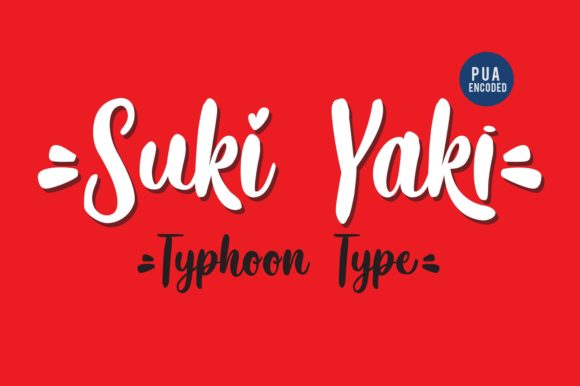
Dive into the world of Suki Yaki Font, a captivating script font that exudes boundless creativity and charm. This remarkable creation by Typhoon Typeâ„¢ - Suthi Srisopha is a stroke of genius, designed to infuse your designs with a touch of freshness and modernity.
Picture this: you're working on a magazine logo, yearning for a font that speaks volumes and leaves a lasting impression. Look no further than Suki Yaki. Its playful, handwritten style is a breath of fresh air, oozing with personality and vitality. Every letter dances off the page, inviting your readers to embark on a delightful visual journey.
With Suki Yaki, you'll discover a treasure trove of possibilities. Its versatile nature makes it a perfect fit for an array of creative endeavors. Whether you're crafting social media posts, designing invitations, or creating stunning posters, Suki Yaki will elevate your designs to new heights.
But it doesn't stop there. Suki Yaki is a font that speaks to the heart. Its bouncy and quirky nature evokes a sense of joy and playfulness, capturing the attention of your audience. It's the perfect choice for projects that aim to connect with a wider audience, leaving a lasting impact that resonates long after the initial encounter.
To further enhance your creative experience, Suki Yaki comes PUA encoded, granting you effortless access to a myriad of glyphs and swashes. Unleash your imagination and explore a world of endless possibilities, where every design element comes alive with Suki Yaki's boundless charm.
Join the creative revolution and embrace Suki Yaki Font today. Let your designs bloom with originality and captivate your audience with every stroke. Suki Yaki is more than just a font; it's an invitation to embark on a creative journey that knows no bounds.